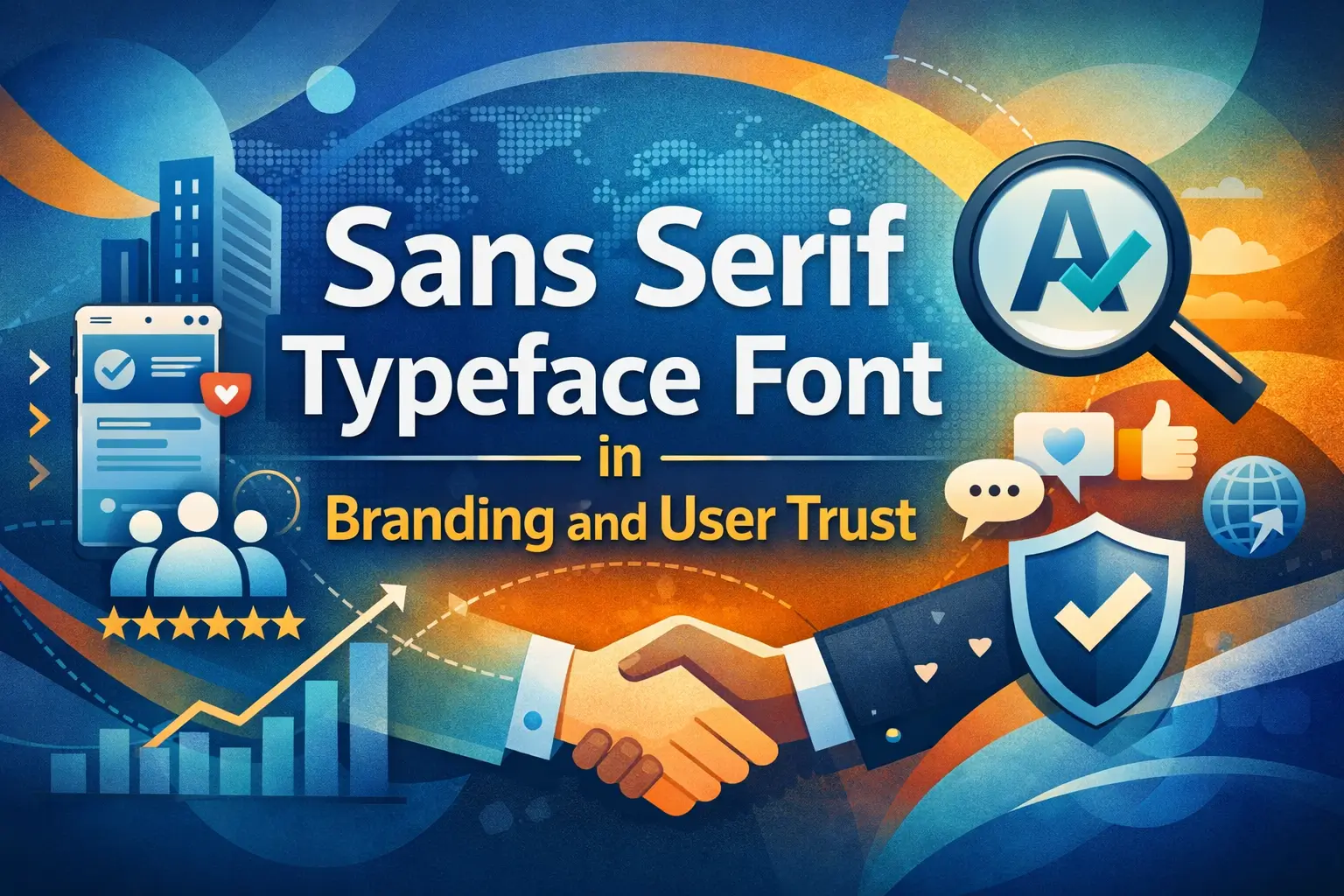
Sans Serif Typeface Font in Branding and User Trust
Sans Serif Typeface Font
Sans Serif Typeface Font and the Way We Read Today
Sans Serif Typeface Font. Why do so many websites feel effortless to read, even before you focus on the message?
The answer is often hidden in plain sight.
The sans serif typeface font has become the dominant visual language of the internet. From mobile apps to global brand identities, this font style quietly influences how we read, feel, and trust content.
In this article, you will understand:
• Why sans serif typeface font dominates digital communication
• How it impacts user experience, perception, and readability
• Why brands and publishers consistently rely on it
This is not a tutorial. It is a deep look into how typography shapes modern behavior and decision making.
What Defines a Sans Serif Typeface Font
The Core Meaning Explained Simply
A sans serif typeface font is a font that does not include decorative strokes at the ends of letters.
In practical terms:
• Sans means without
• Serif refers to small finishing details
The result is a font that looks clean, neutral, and visually efficient.
Visual Traits That Matter
Common characteristics include:
• Even stroke thickness
• Open letterforms
• Minimal visual noise
• Strong clarity at small sizes
These traits make sans serif fonts especially effective on screens and digital interfaces.
Why Sans Serif Typeface Font Feels Modern
The Digital Reading Shift
In print media, serif fonts once dominated because they helped guide the eye across physical pages.
Digital screens changed that dynamic completely.
Research from Nielsen Norman Group shows that sans serif fonts perform better for online readability, particularly on mobile devices.
Reasons include:
• Better rendering on screens
• Clear shapes at different resolutions
• Reduced eye strain
This explains why digital platforms prefer sans serif typography almost universally.
Psychological Signals to the Reader
Sans serif typeface font often communicates:
• Simplicity
• Transparency
• Efficiency
• Modern thinking
Without readers realizing it, these signals shape trust and comfort while consuming content.
Sans Serif Typeface Font and Brand Perception
How Typography Builds Credibility
Typography is not neutral. It influences emotional response almost instantly.
Studies referenced by MIT AgeLab indicate that people form judgments about professionalism and trustworthiness within milliseconds of seeing text.
Sans serif fonts tend to score higher in:
• Perceived honesty
• Approachability
• Contemporary relevance
This is why technology brands and digital services favor them.
Real Brand Decisions
Many global brands simplified their typography to align with modern expectations. Their decisions were driven by clarity and consistency across devices, not trends.
When brands remove visual friction, users stay longer and engage more deeply.
Sans Serif Typeface Font in UX and Reading Patterns
Supporting Natural Eye Movement
Eye tracking research shows users scan content in predictable patterns, often called F patterns or Z patterns.
Sans serif fonts support these behaviors by:
• Maintaining consistent letter recognition
• Improving line flow
• Reducing cognitive load
This allows readers to absorb information faster and with less effort.
Accessibility and Inclusive Design
Sans serif typeface font is widely used in accessibility focused design.
Benefits include:
• Clear differentiation between similar characters
• Better readability for dyslexic users
• Strong performance for multilingual content
Accessibility is no longer optional. Typography plays a major role in inclusive experiences.
Types of Sans Serif Typeface Font You See Everywhere
Humanist Sans Serif
These fonts feel natural and friendly.
Key traits:
• Subtle stroke variation
• Inspired by handwriting
Commonly used in editorial platforms and education related content.
Geometric Sans Serif
These fonts are based on simple shapes.
Key traits:
• Strong symmetry
• Precise appearance
Often used by startups and technology brands that want a modern identity.
Neo Grotesque Sans Serif
These fonts are neutral and highly adaptable.
Key traits:
• Balanced proportions
• Minimal personality
Frequently used in corporate systems and large scale interfaces.
Does sans serif typeface font help SEO?
Indirectly. Better readability leads to improved engagement signals.
Can sans serif fonts feel warm or emotional?
Yes. Humanist styles can feel approachable and friendly.